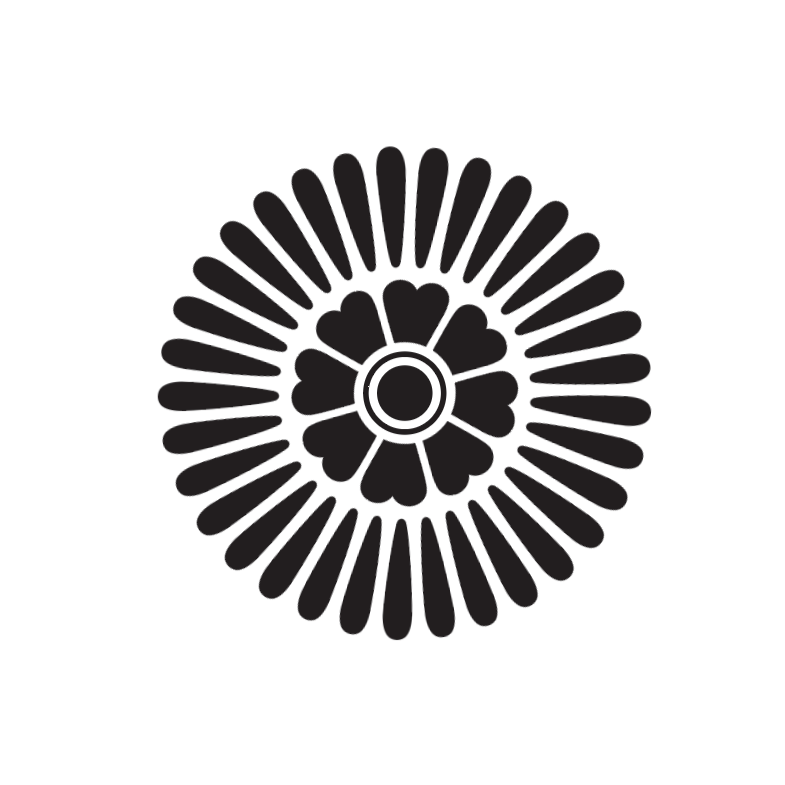
Designed & cut by Brea Frey
Laser cut
End grain maple
American Type high (.918")
This design is inspired by metal ornaments originally made by ATF. I asked my grandma (the resident gardening expert in my life) what flower they looked like, and without hesitation she said asters. That felt serendipitous, since aster shares its root with asterisk, the Greek word for “star,” a fitting typographic link.